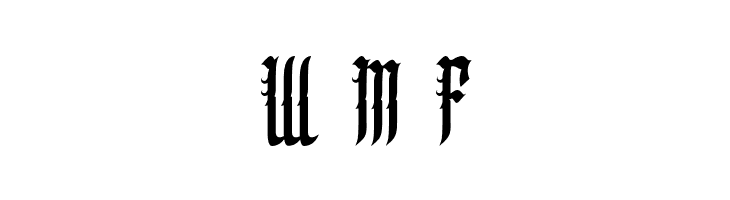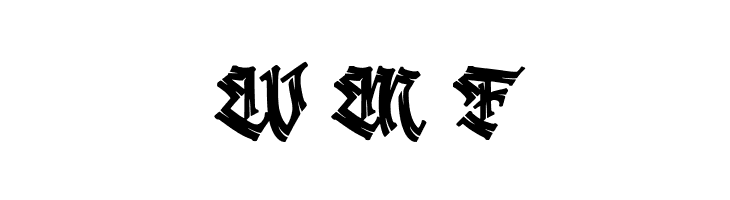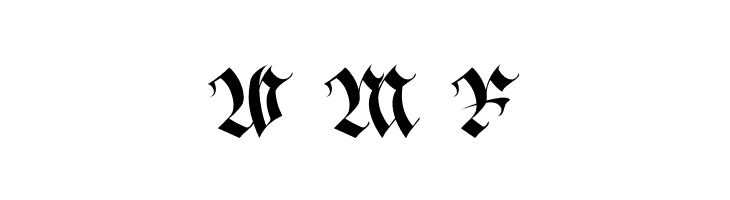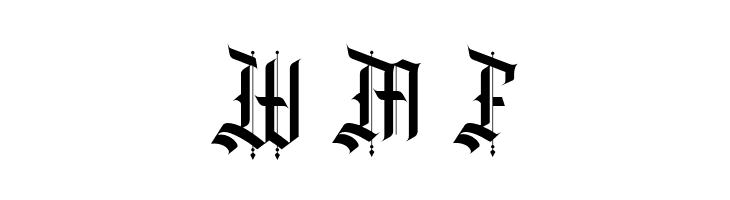
• Neue Theuerdank Fraktur UNZ1
A traditional blackletter font with intricate, ornate letterforms and a gothic aesthetic.
• CATSchmalfetteThannhaeuser
A bold, blackletter-inspired font with intricate, angular letterforms.
• Andalusia Regular
A classic, ornate font with Gothic influences and intricate detailing.
• Andy Tusvah
A classic, elegant script font with flowing cursive letters and ornate details.
• AtomBraille
A modern, atomic-themed design with consistent symbols and a scientific aesthetic.
• UKIJ Kufi Tar
A traditional blackletter font with ornate, angular letterforms and high contrast.
• Absortile-Bold
A bold, classic serif font with high contrast and elegant details.
• Absortile
A high-contrast serif font with elegant, sharp serifs and a classic style.
• Decorative Stencil
Ornate stencil-style decorative glyphs with bold, intricate designs.
• Balgruf
A bold, classic blackletter-style font with intricate detailing and strong vertical emphasis.
• FengardoNeue
• Glaston
An elegant script font with intricate swashes and high contrast, ideal for formal uses.
• Soft Notes SVG Sample Regular
A blackletter font with sharp, angular forms and a gothic, calligraphic style.
• NurHidayahDemo
A bold, blackletter-style font with ornate, angular characters.
• GREENBULL
A bold, ornate Blackletter font with sharp serifs and high contrast, ideal for historical or decorative projects.
• DexotickUnderlines
Decorative underlines resembling cursive handwriting.
• Krakato Fraktur
A bold, decorative blackletter font with intricate details and historical flair.
• Blackshadow
A bold, ornate blackletter font with high contrast and sharp serifs.
• Blackrose
An ornate Blackletter font with gothic, medieval characteristics.
• BlackJoker
A bold, angular Blackletter font with intricate detailing and a medieval flair.
• Bavarian Crown PERSONAL Regular
A classic blackletter font with ornate, angular strokes and decorative serifs.
• GuyfordBlackletter